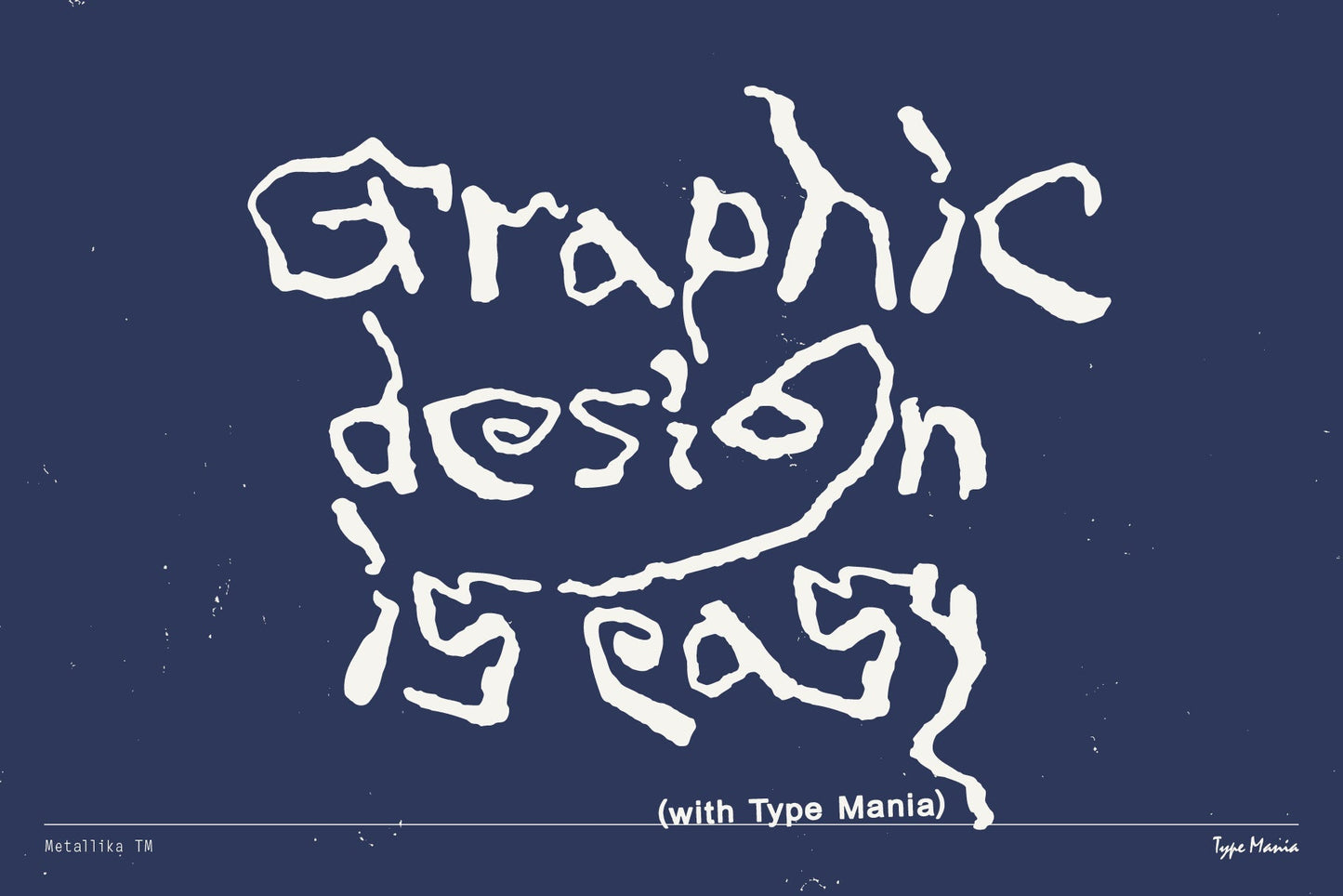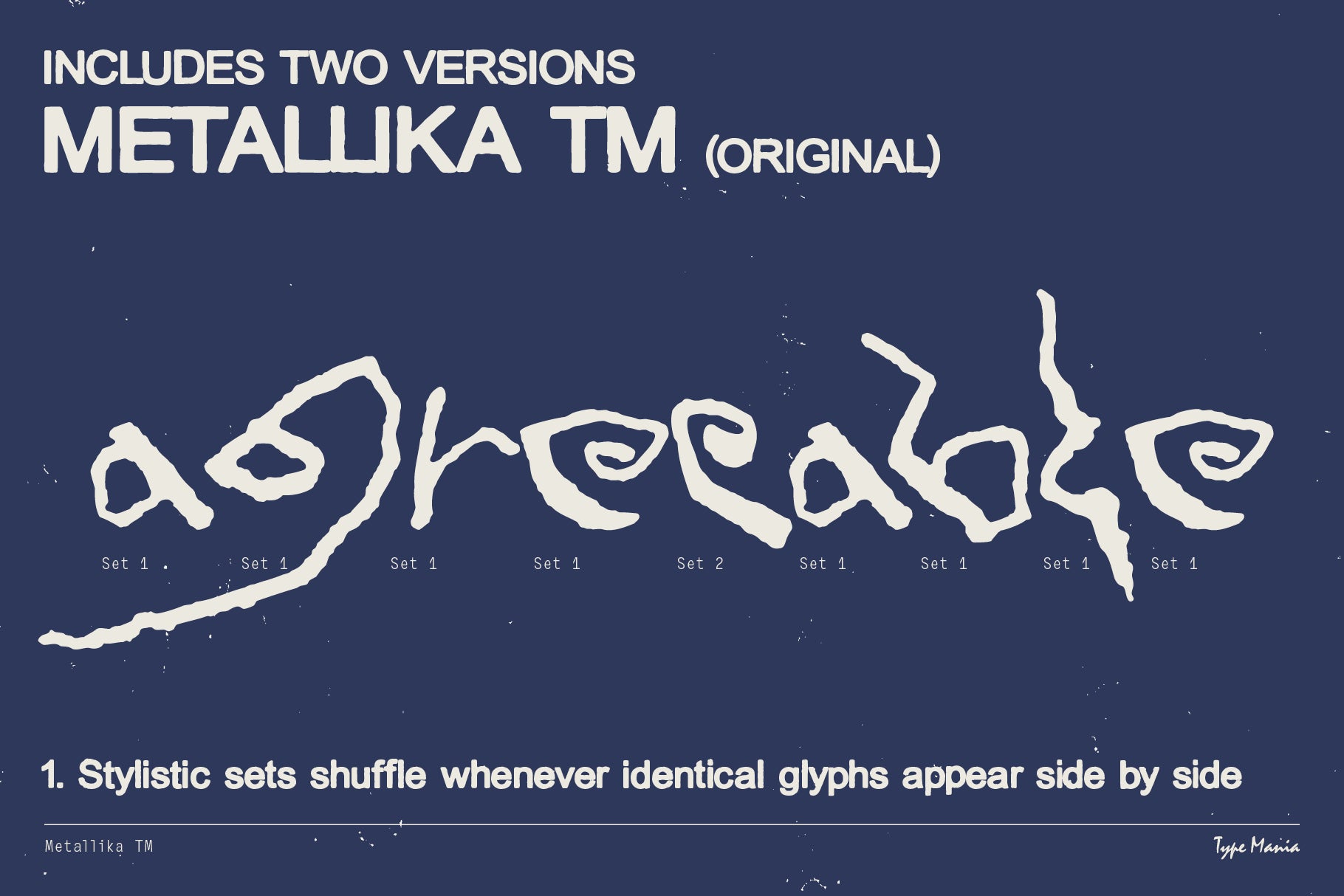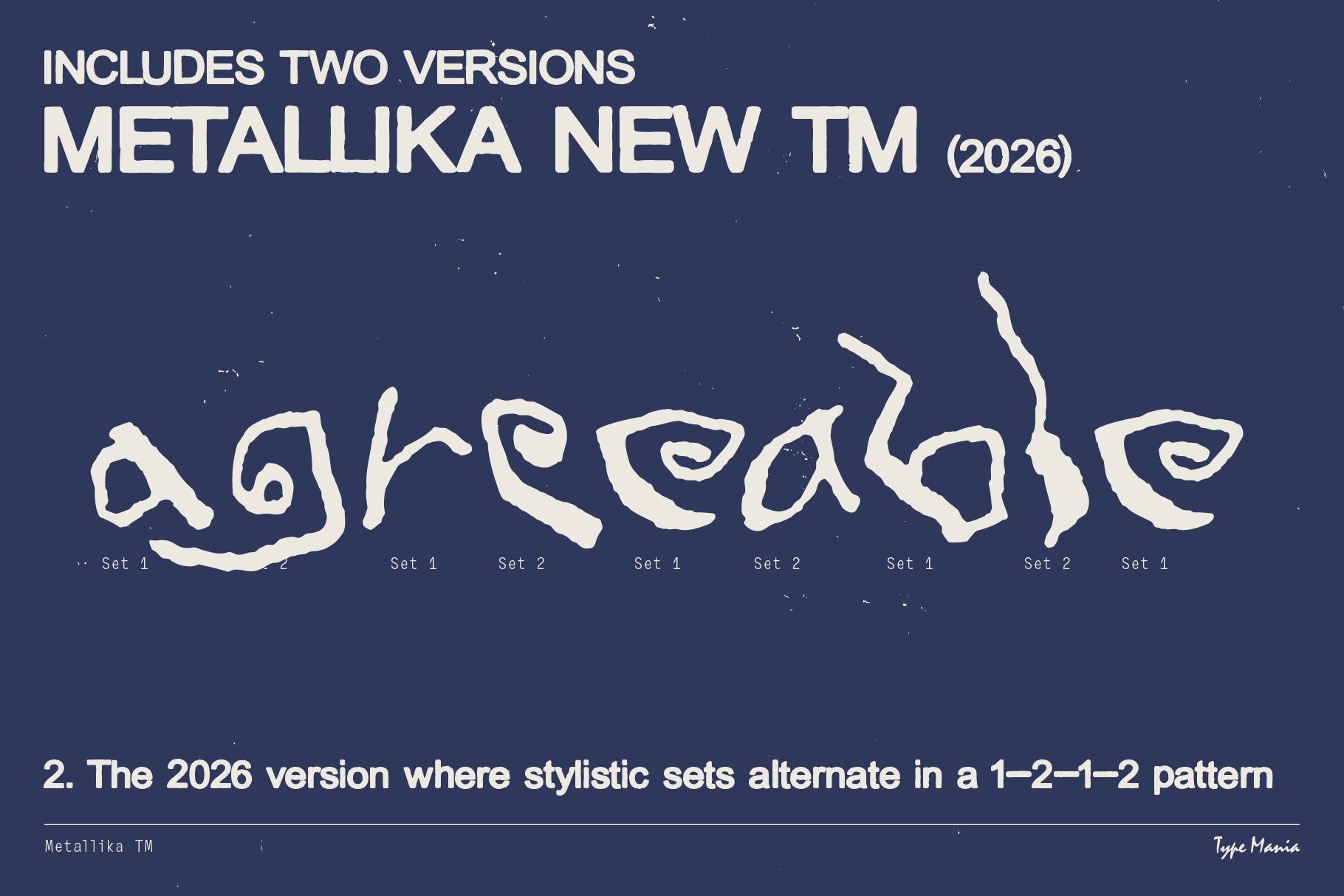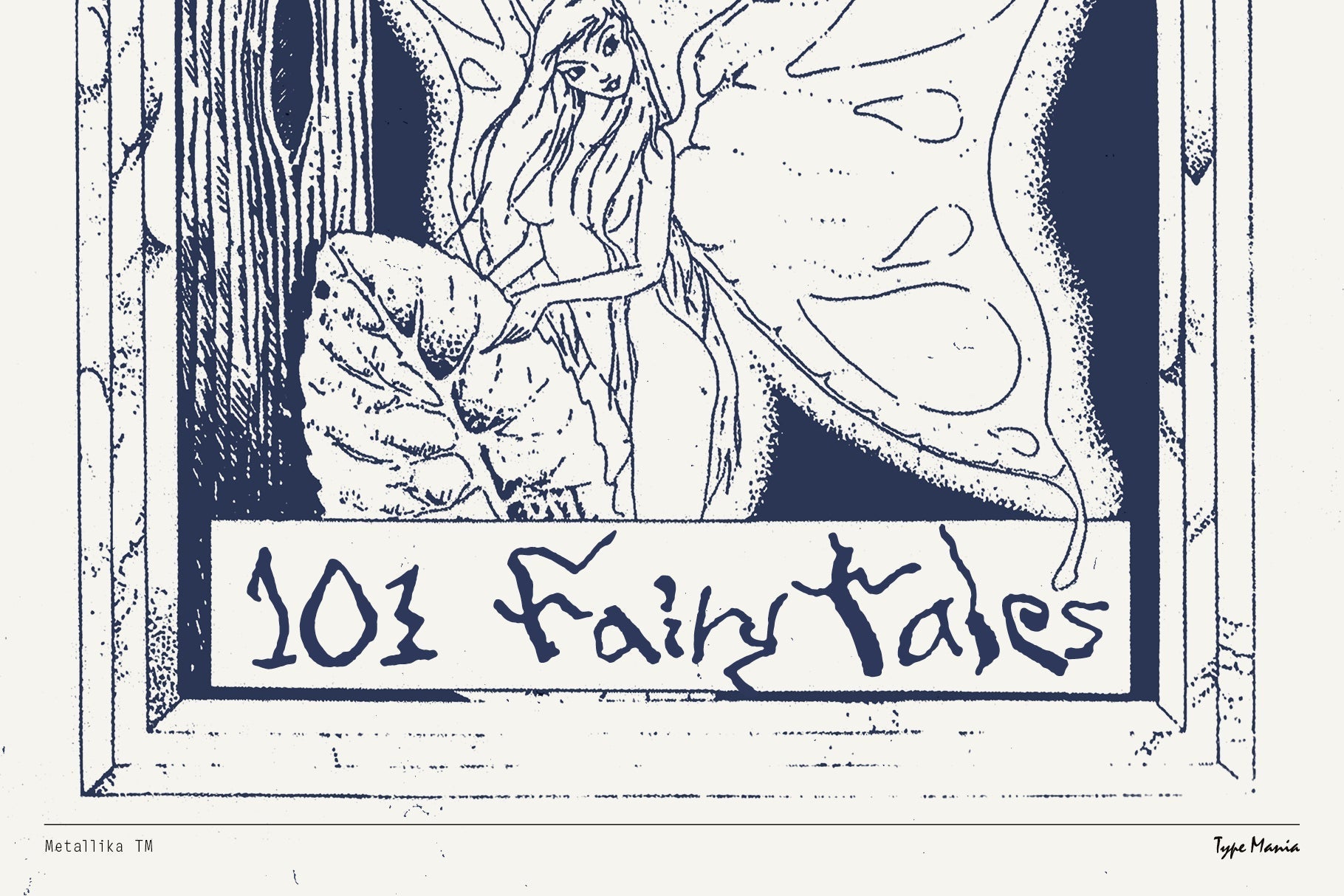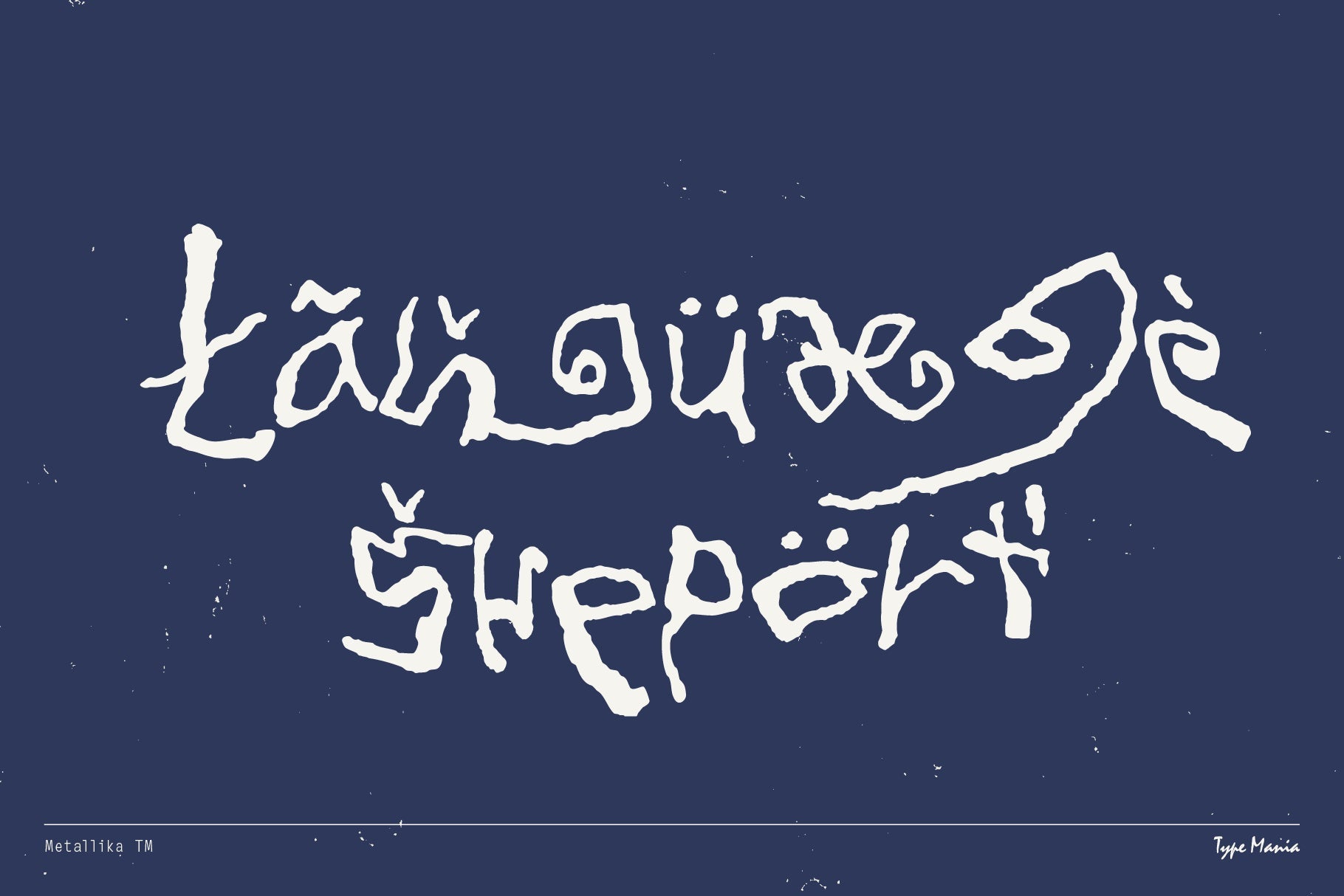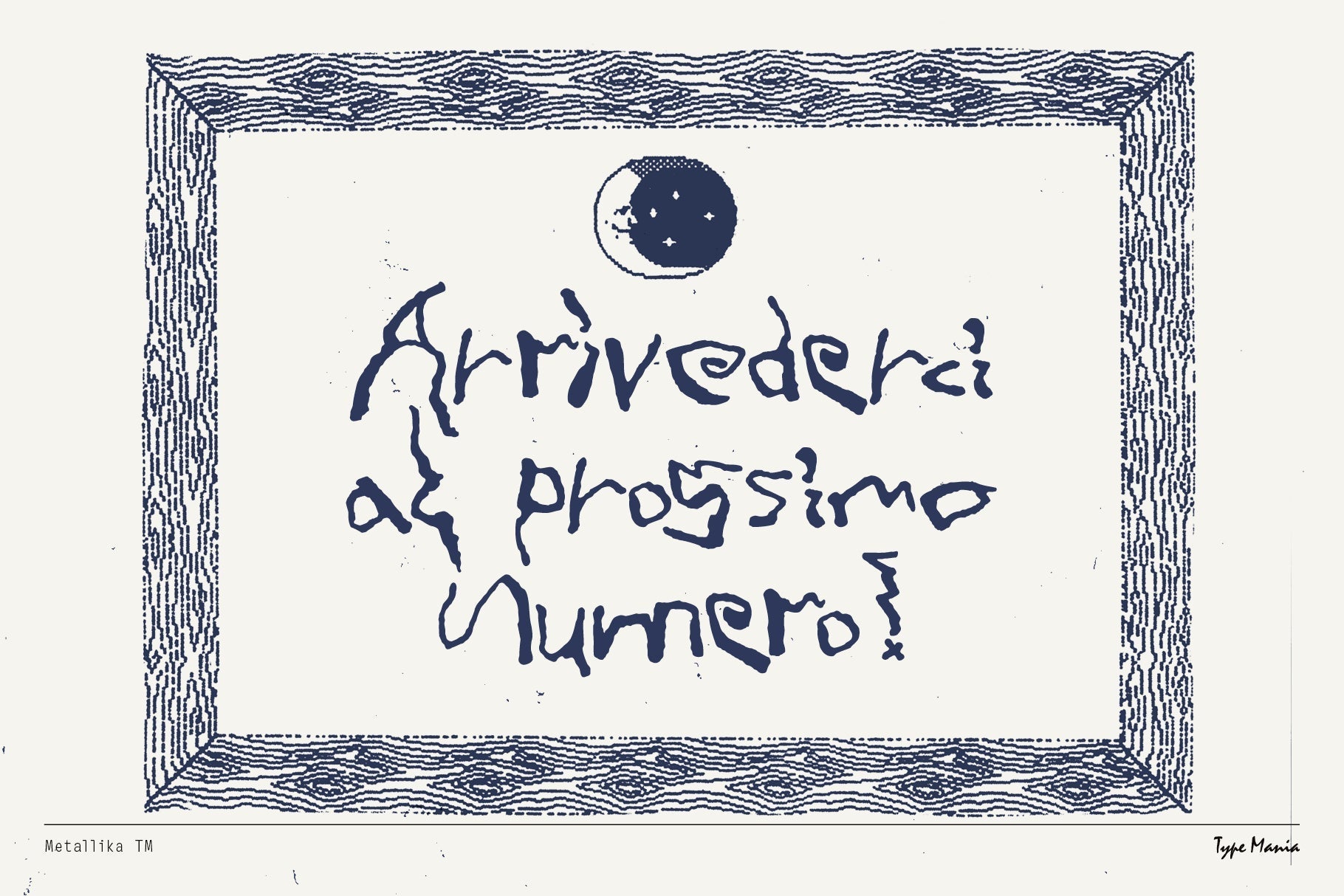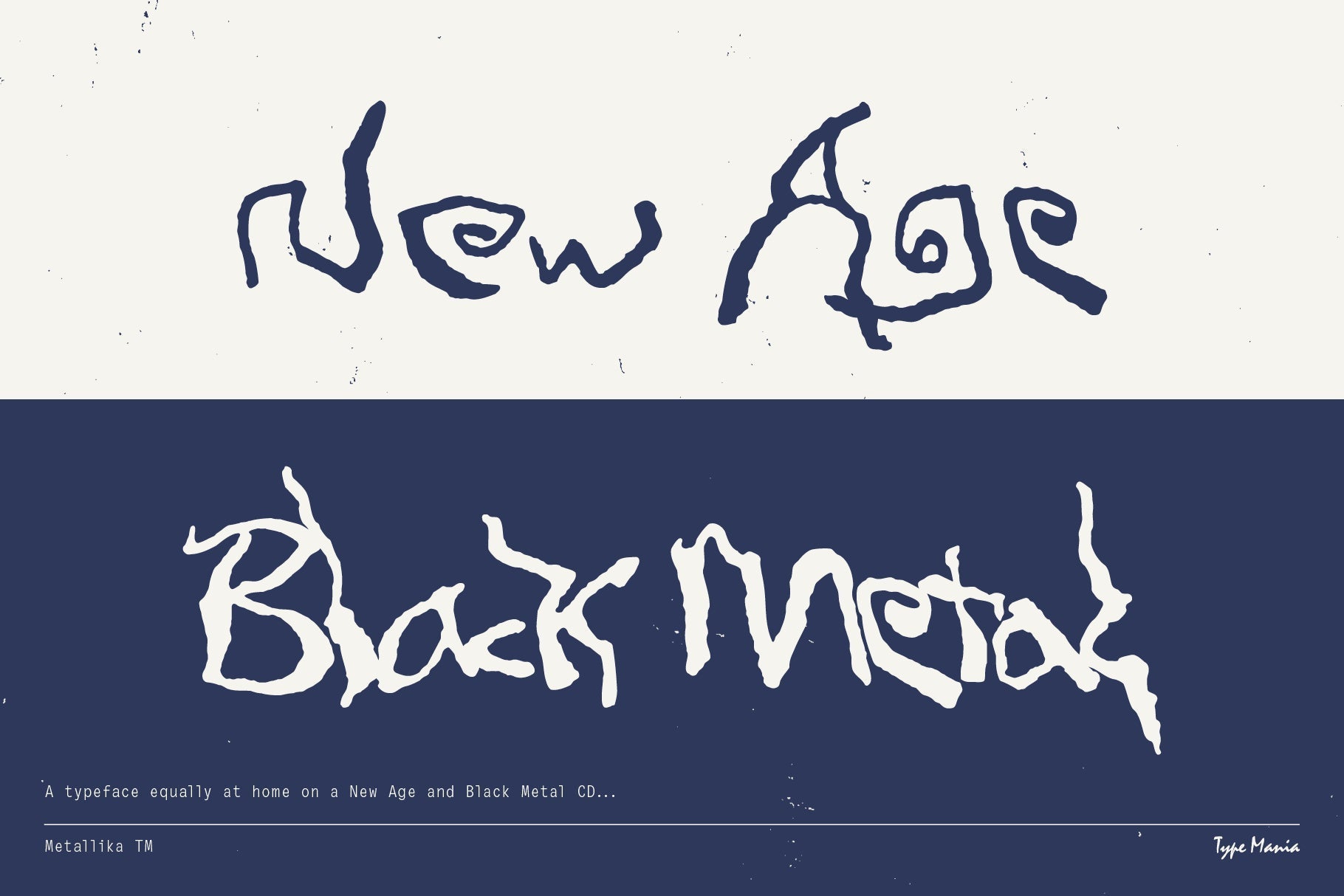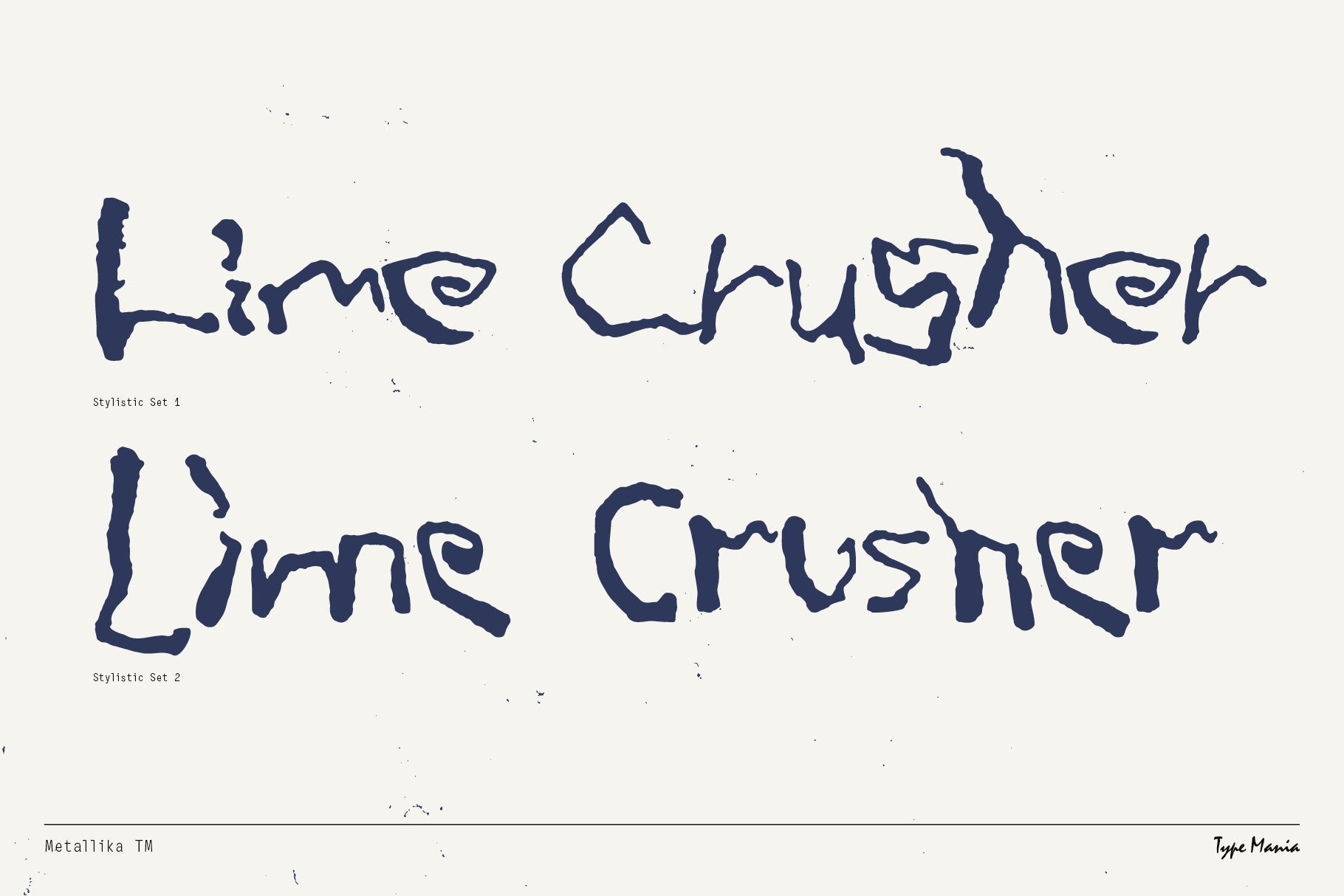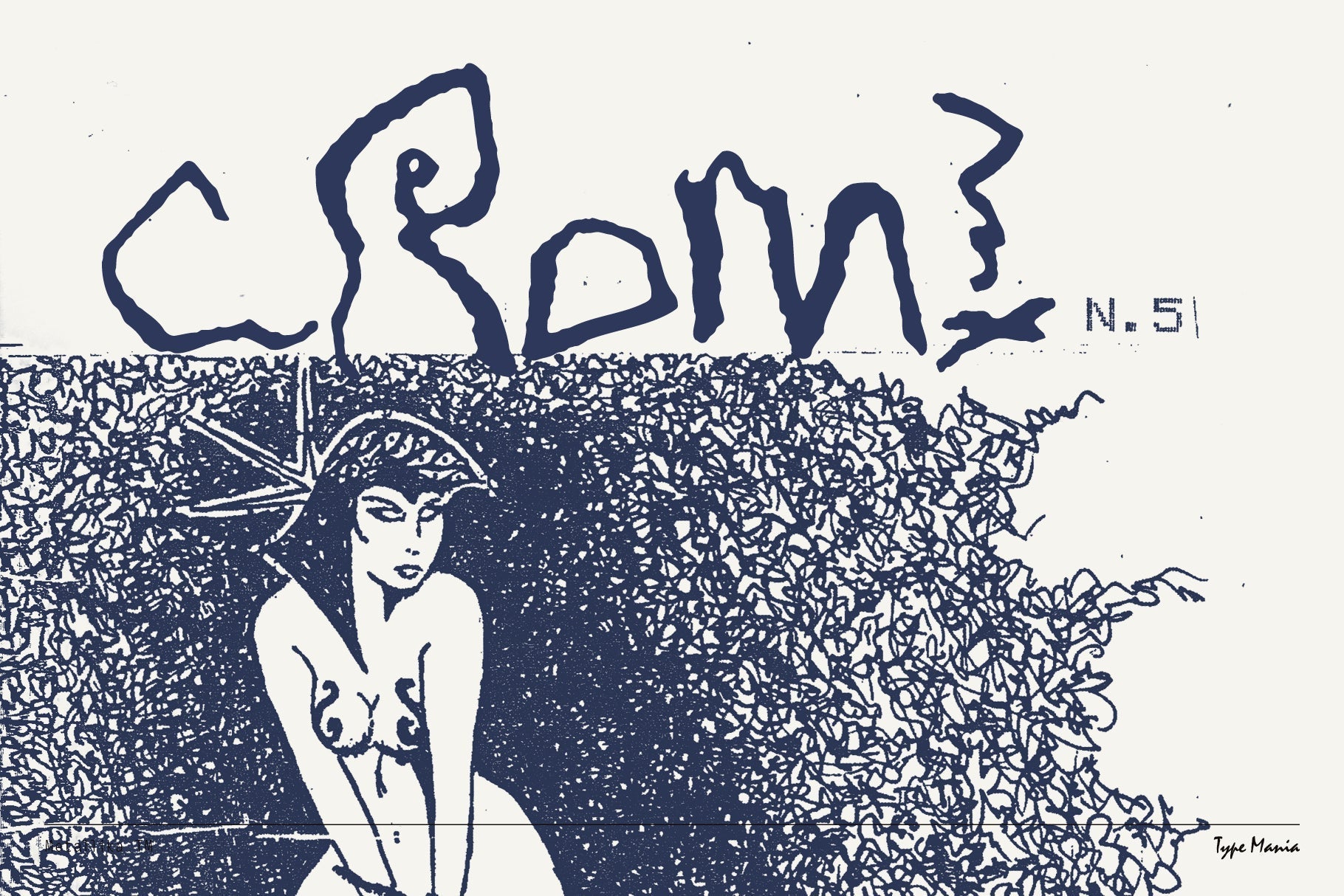
Metallika TM
Whether you're summoning the spirits of the abyss or guiding souls to higher planes, Metallika TM adapts to your creative vision with ease. Elevate your album covers, posters, merchandise, and beyond with the unparalleled versatility of Metallika TM 😈
- 2 stylistic setsÂ
- Includes two versions of the font: 1. Stylistic sets shuffle whenever identical glyphs appear side by side, 2. A new version where stylistic sets alternate in a 1–2–1–2 pattern, when the Contextual Alternates is turned on.